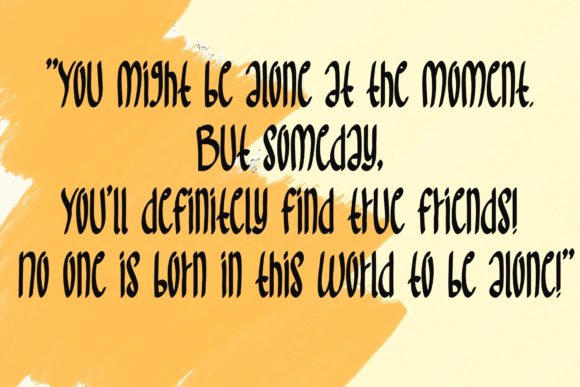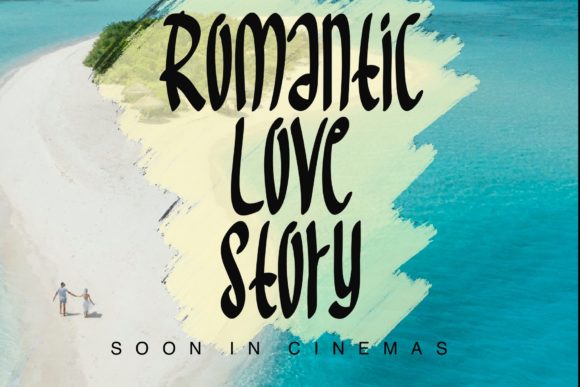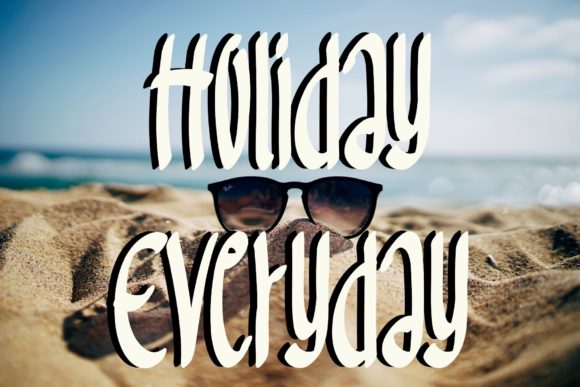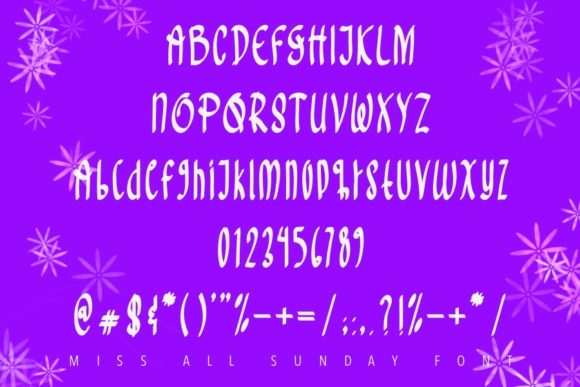
Introduction to Miss All Sunday Font
Have you ever been working on a creative project, only to feel stuck because you’re missing the perfect font to bring your design to life? It’s a frustrating feeling, but one that’s easily solved with the right design resource. That’s where the Miss All Sunday Font comes in – a fun and friendly display font that’s sure to add a touch of joy to any project.
With its trendy and playful vibe, the Miss All Sunday Font is perfect for designers looking to add a bit of whimsy to their designs. Whether you’re working on a project with a transparent background or a high-quality print, this font is sure to shine. And the best part? It’s available for free download, making it an invaluable resource for designers of all levels.
Key Features of Miss All Sunday Font
- High-quality design resource perfect for creative projects, offering a unique and stylish look.
- Comes with a transparent background, allowing for easy customization and seamless integration into any design.
- This distinctive font is ideal for designers seeking a bold, eye-catching typography solution for their next creative project.
Honest Review: Miss All Sunday Font
I recently had the opportunity to work with the Miss All Sunday Font for a creative project, and I must say it’s been a game-changer. This free download has been a valuable addition to my design resource arsenal.
- ✨ Transparent background makes it easy to customize and use in different contexts
- ⚠️ Limited character set and glyph availability, which can be a challenge for more complex designs
- ⚠️ Not ideal for use in smaller text sizes, as it can become difficult to read
Overall, I’m really impressed with the Miss All Sunday Font. Its high quality and versatility make it a great choice for designers looking to add some flair to their creative projects. With a little creativity and planning, you can overcome the limitations and get the most out of this amazing font.
Miss All Sunday Font is commonly used in:
Logo designs
Business cards
Brochures
Web design